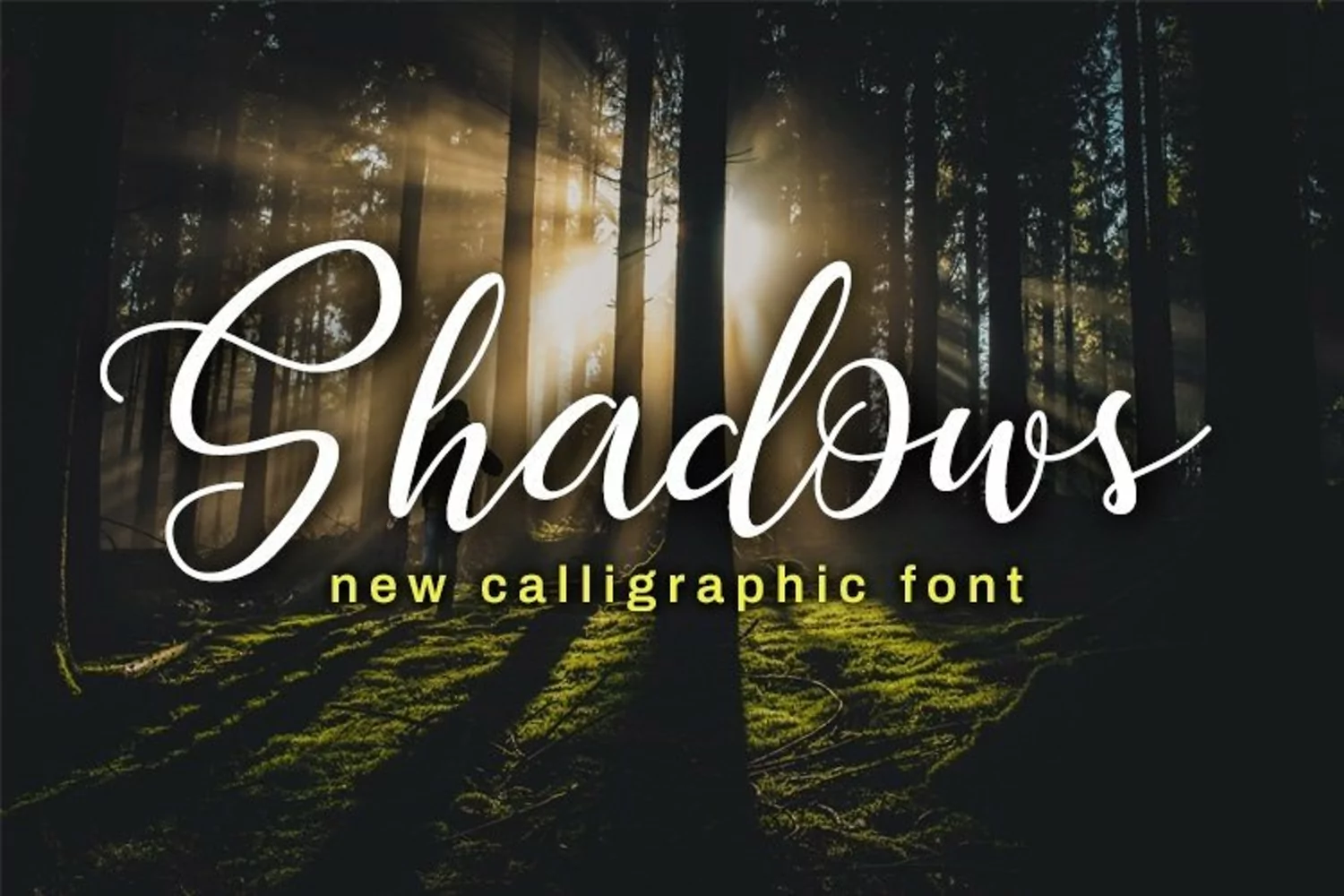
Web Font Shadows
Shadows is a script font perfect for craft and design projects. All glyphs are PUA encoded meaning they can be accessed without Premium Software.